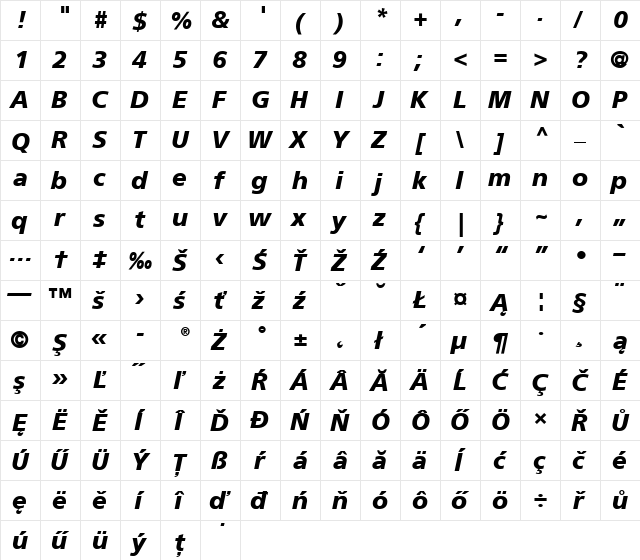
Frutiger CE 55 Roman Bold Italic Font Preview
Frutiger CE 55 Roman Bold Italic
Design Context for Frutiger CE 55 Roman Typeface
Frutiger CE 55 Roman offers clean, dependable letterforms without strong stylistic allegiance, making it a practical choice for designers who need flexibility. Its italic angle brings a sense of urgency and motion to the letterforms. Its bold stroke weight gives it real presence on the page.
Pro Tip: Use Frutiger CE 55 Roman for emphasis, pull quotes, and subheadings where its slanted energy can add rhythm to the layout.